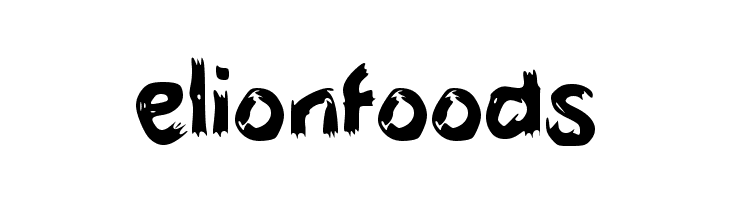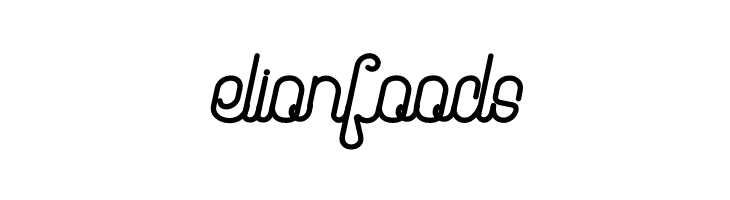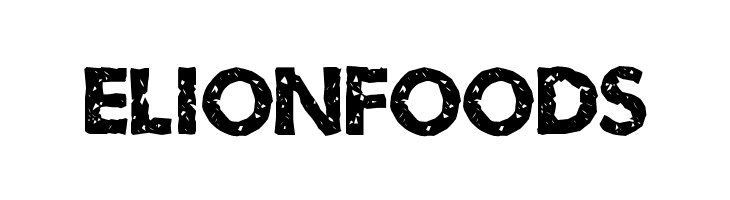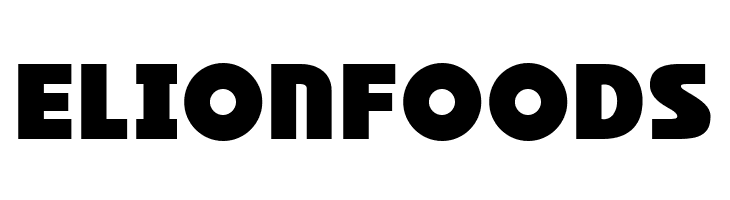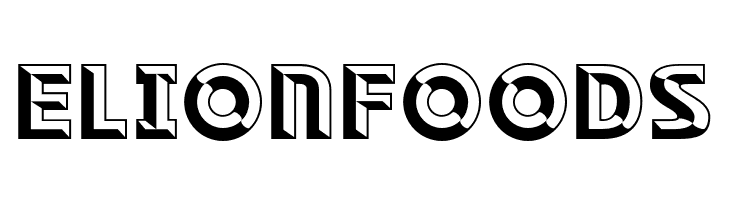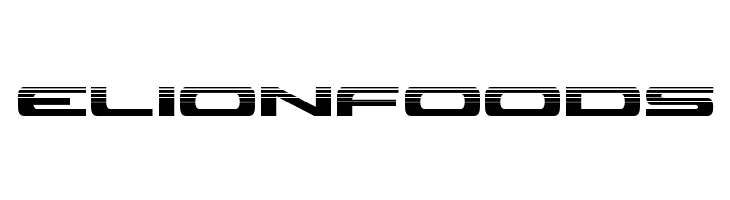
A bold, distressed font with jagged edges and a grunge-like appearance.
A modern, flowing cursive font with seamless connections and elegant loops.
A bold, dynamic script font with thick strokes and a slanted style.
A bold, modern font with narrow, curved letterforms and a distinctive style.
Tactile dot-based system for accessible reading.
A playful, bold font with a hand-drawn appearance and modern aesthetic.
A bold, distressed font with a rugged, vintage look.
A bold, geometric font with a modern and impactful style.
A bold, chiseled font with a three-dimensional effect, ideal for impactful designs.
A bold, futuristic font with a halftone effect and geometric structure.